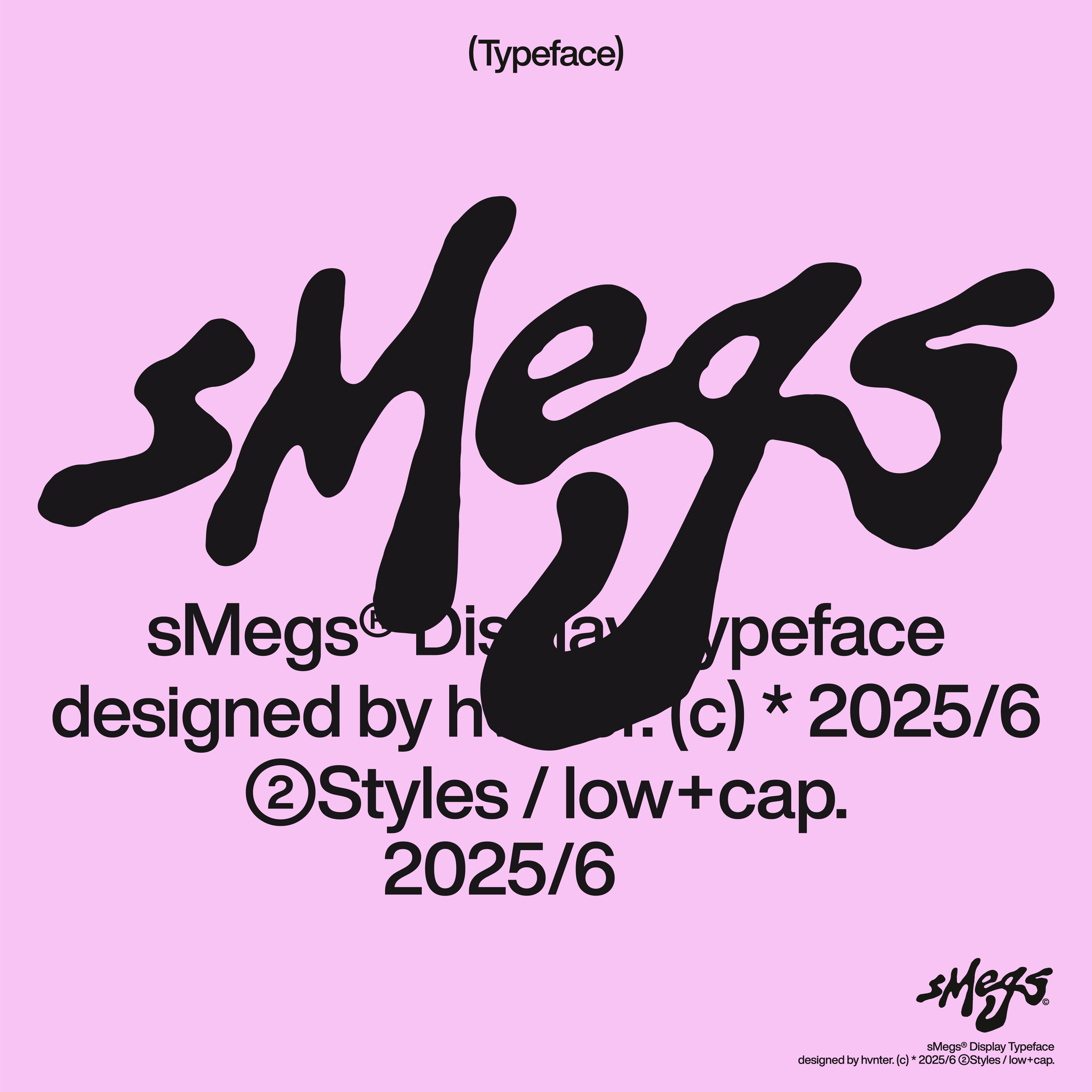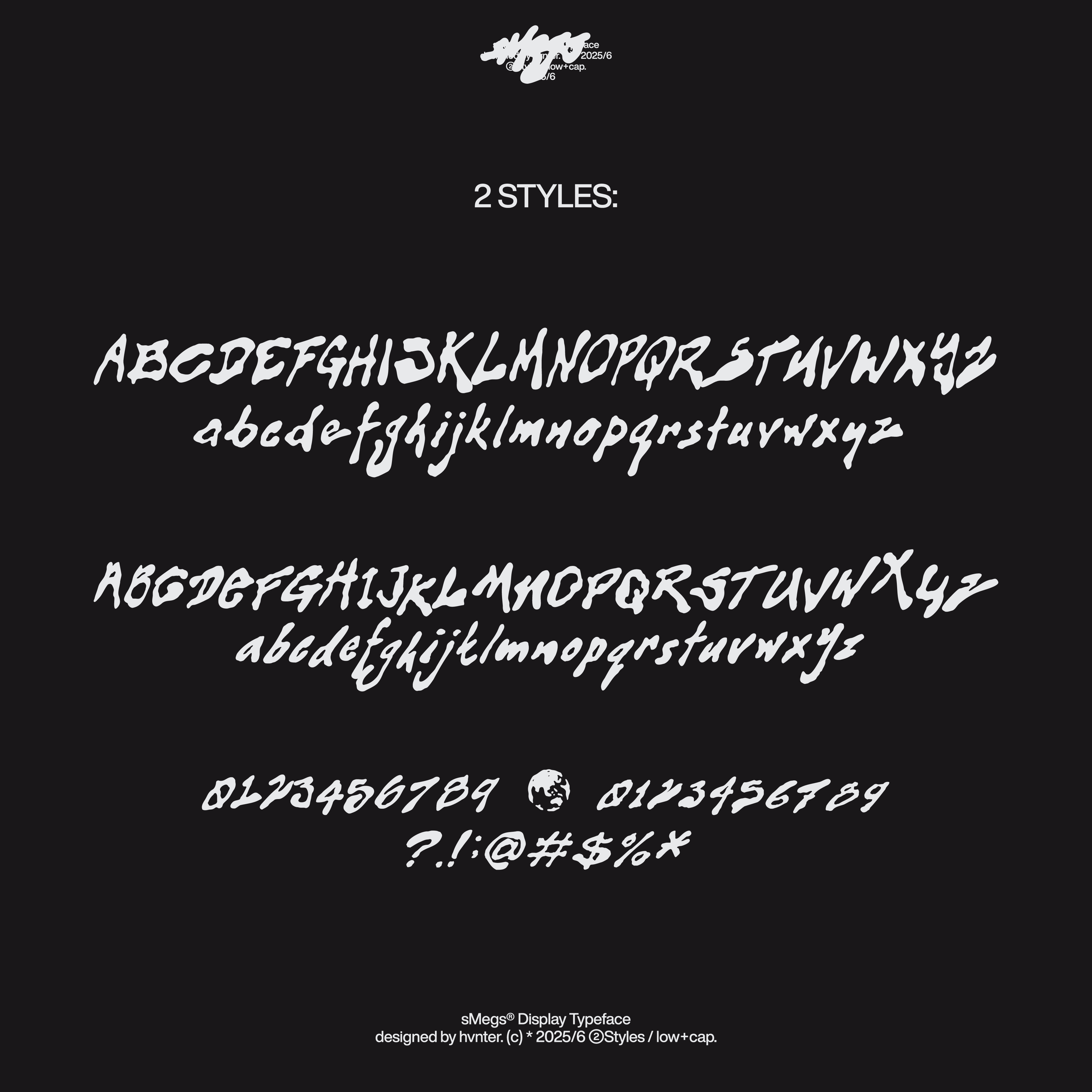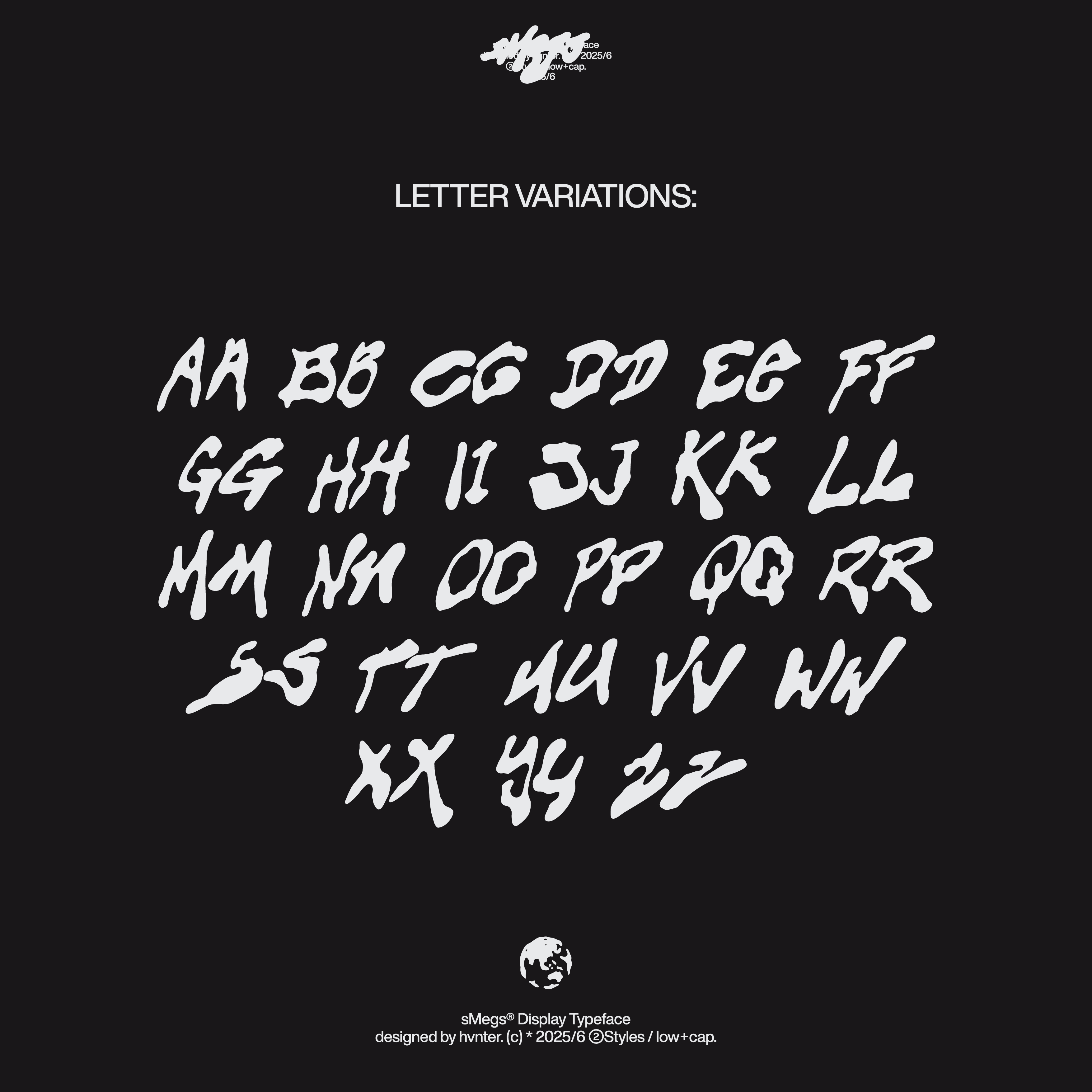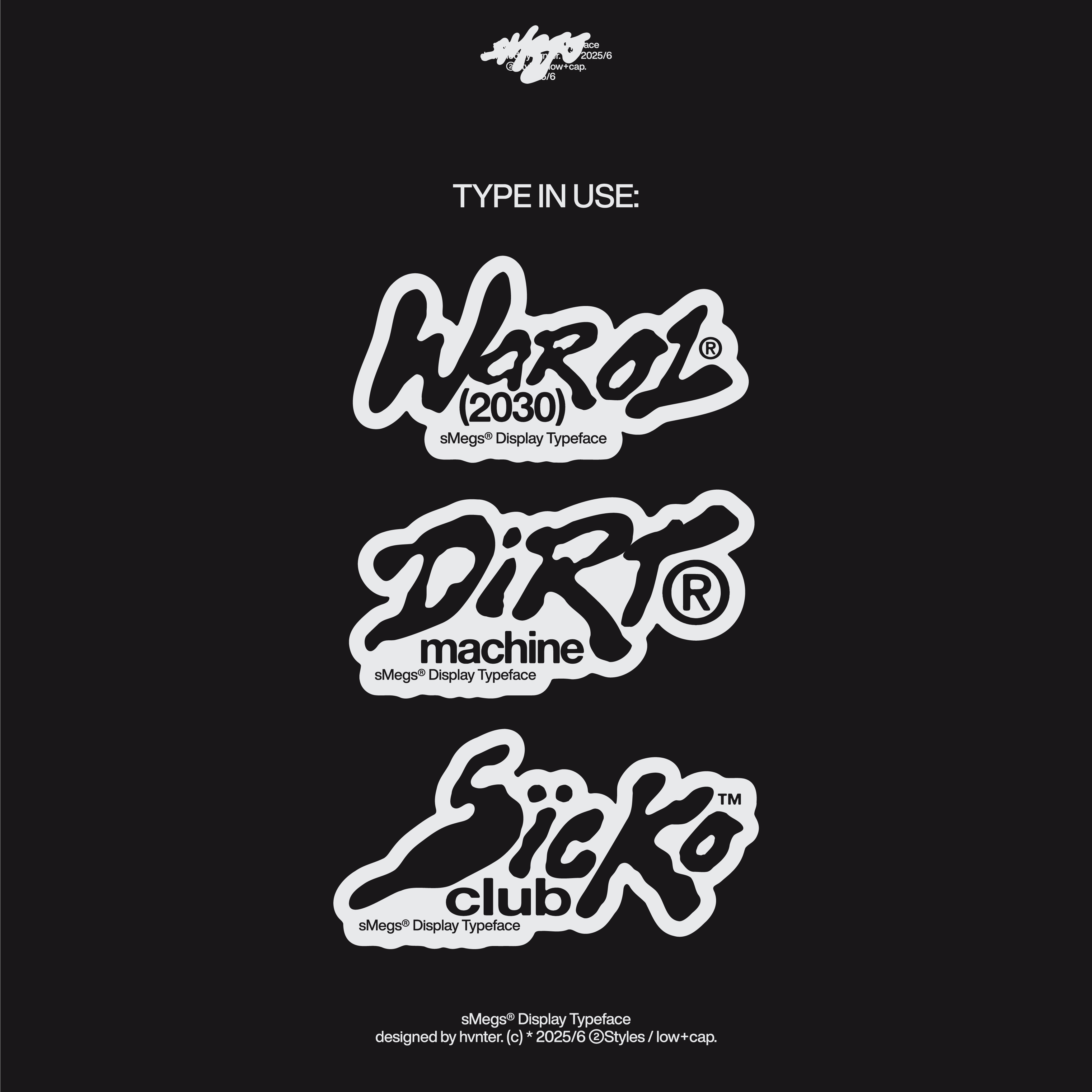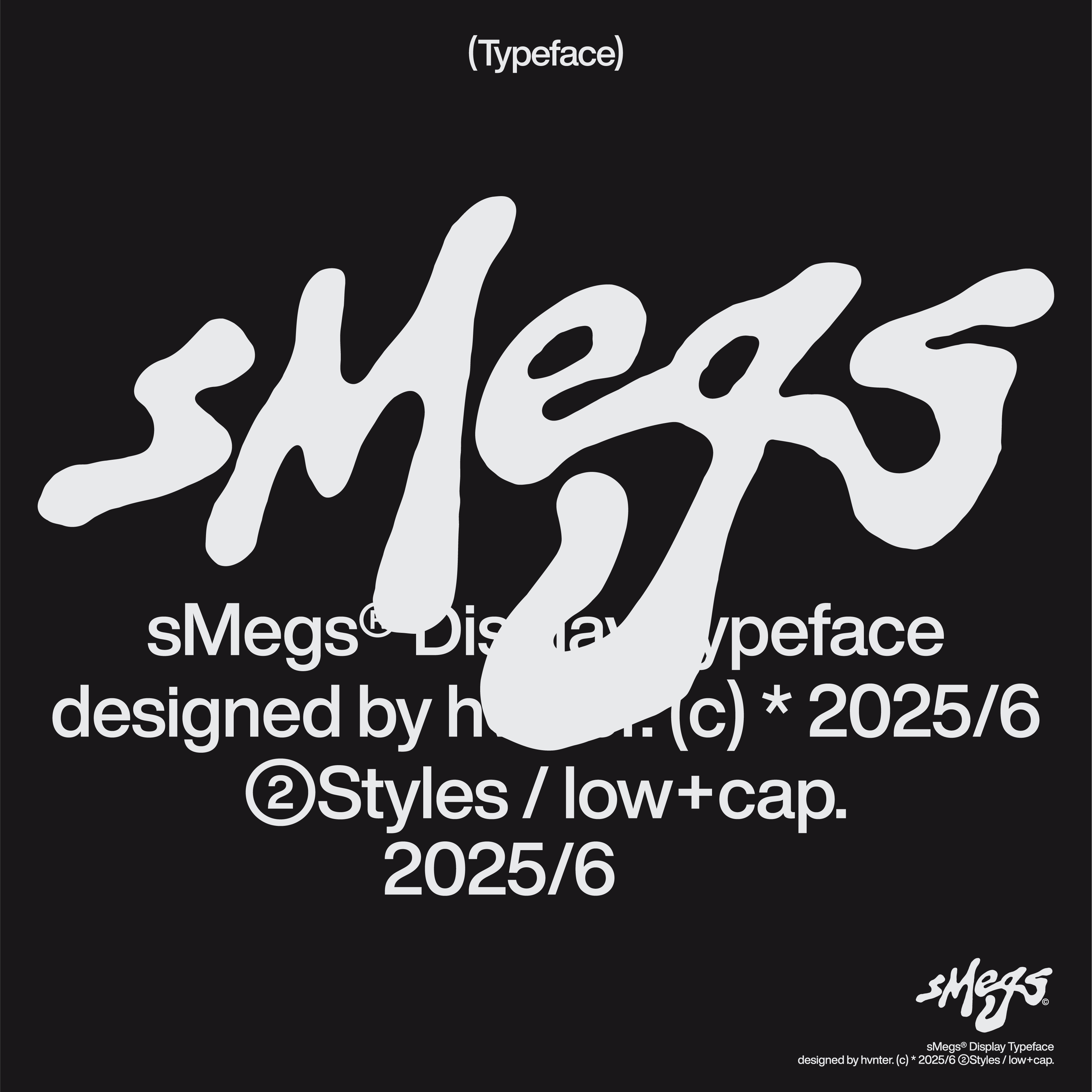
SMEGS Typeface
Messy hand drawn typeface.
Includes 2 styles: A-Z, a-z, 0-9 + symbols
SMEGS Typeface is a hand drawn font available in 2 styles, including uppercase and lowercase letters, numbers 0-9, and symbols.